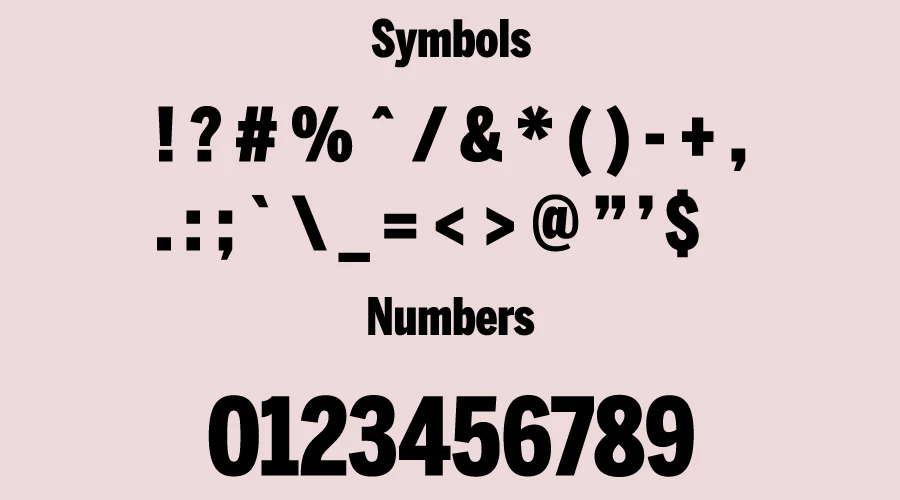
Basically, all marvel cinematic universe movie title has its own custom made font. Specifically, the marvel studios logo used the modified version of the “Benton Sans Compressed Black” font. There are so many fonts available regarding this one. Don’t hesitate to download Benton Sans Comp Black font for free to use in such places it seems good.
In the year 1995 Tobias Frere-Jones designed the font and Cyrus Highsmith expanded it later. Based on Morris Fuller Benton’s News Gothic which was made for Martha Stewart Living Magazine. After that Font Bureau released it by the name News Gothic. The font is available in a couple of weights in style. Among them regular, medium, bold, light, extra light, eight weights-thin are mentionable.
Benton Sans Comp Black Font View
- Magazines: The font has the outlook to place on top of magazines.
- Logo: So perfect for Logo Design, Benton Sans Comp Black has the right.
- For headlines: The font is uppercase so convenient for headlines.
- On Design: Designing is amazing with BentonSans Comp Black Font style, especially for the readers who find it attractive.
- For YouTube Thumbnail: If you share anything related to Marvel then, this is perfect for youtube thumbnail design.
Its usage is widespread in the corporate world. The style of the font is capable of positioning at the top. This highlights any word on the cover page. From magazines, newspapers, comics to big institutions. Like marvel comics, Indiana University, Western University, Ivey Business School this font is quite popular for the eye-catchy look.
And, if you’re interested in the alternative of this Benston Sans font. Also, you can use another similar type of font called, “League Gothic”.